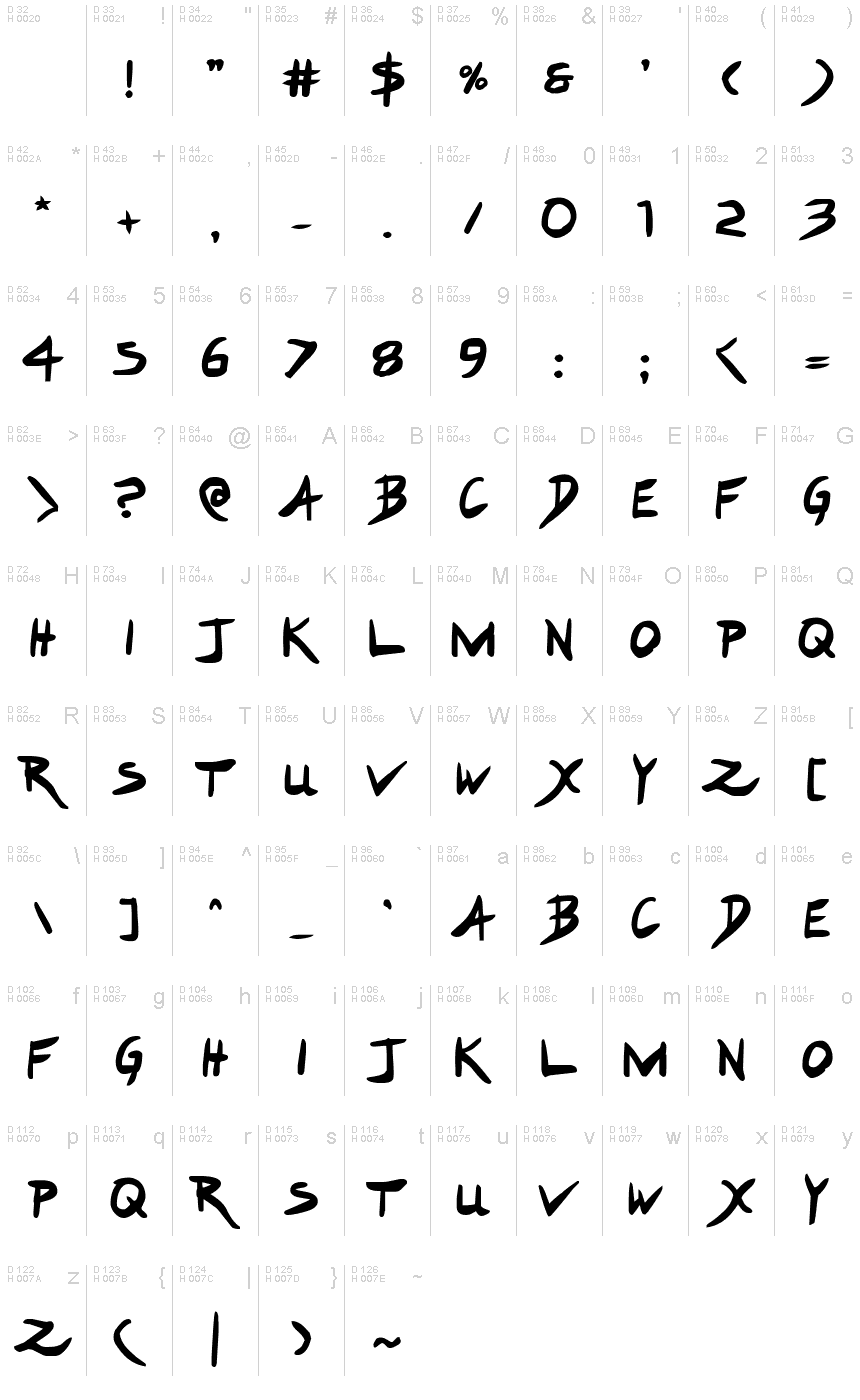
Hakturus Bold
Hakturus Bold, a captivating creation by Iconian Fonts, boasts a mesmerizing brush style that exudes an air of boldness. This font is perfect for diverse projects seeking a touch of creativity and distinction. With its thick strokes and dynamic curves, Hakturus Bold is ideal for eye-catching headlines in digital designs, logo branding for fashion or beauty industries, and impactful posters or advertisements. Its versatility extends to social media graphics, blog headers, and even album covers where the need to stand out from the crowd is paramount. Let Hakturus Bold elevate your projects with its striking presence!